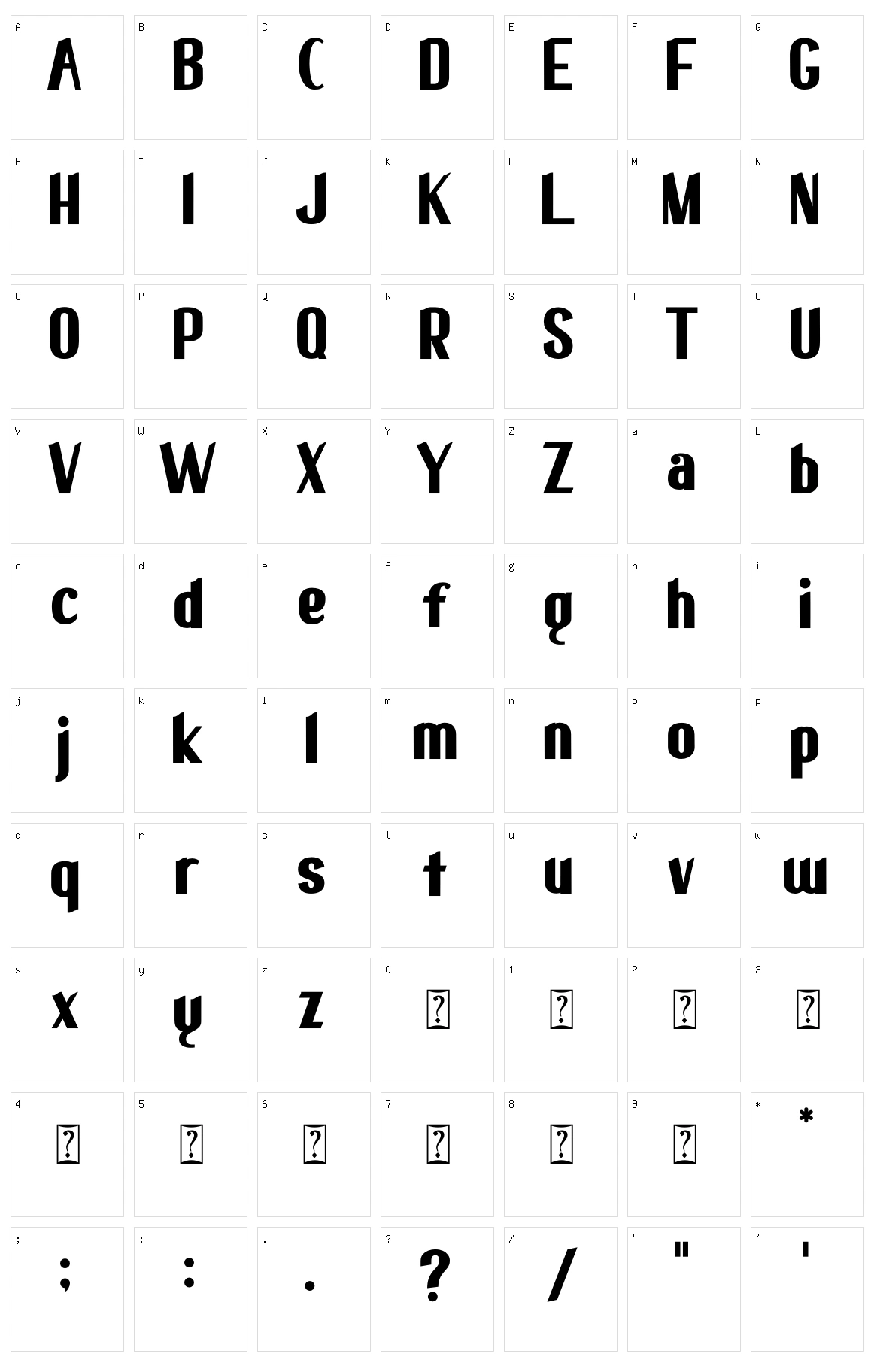
The free font Elma is carefully designed by Muhammad Romzul Khoir, showcasing a thoughtful balance of creativity and usability and falls under the Sans serif font style. When you download the ZIP file, it contains only 57.75 KB of font files, making it lightweight and quick to download. Please review the license details below to understand permitted usage and distribution rights. If license information is not available, we recommend using this font for personal projects only or contacting the author directly for commercial usage permissions.